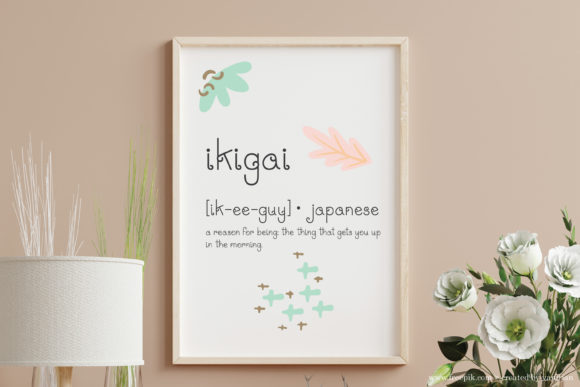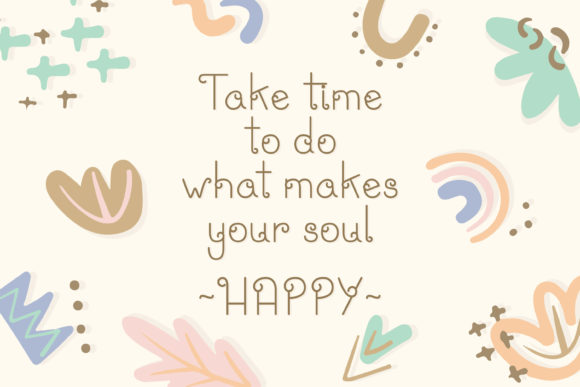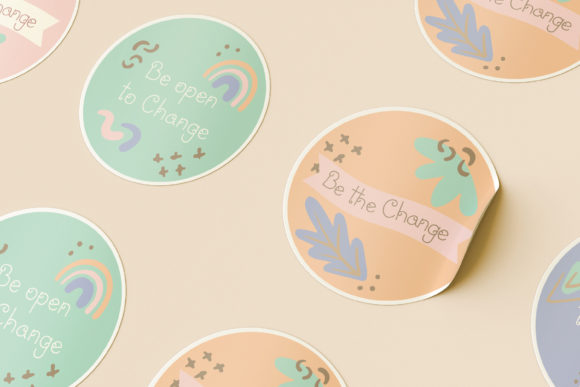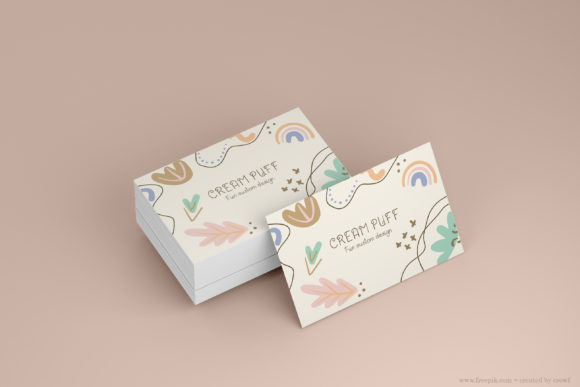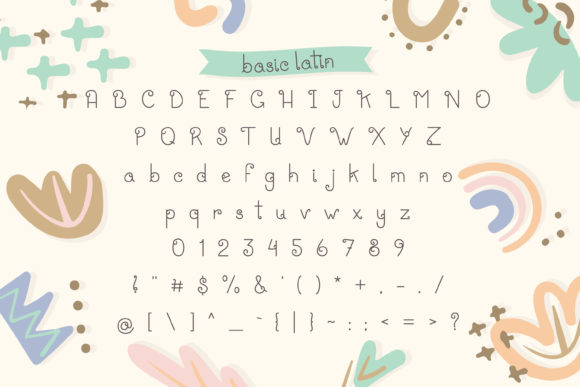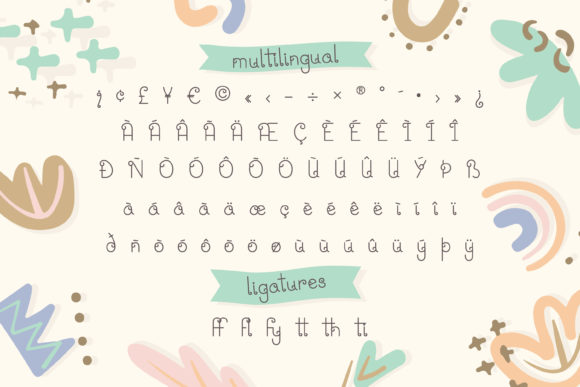
Introduction to Cream Puff Font
Cream Puff is a cute, chic and thin lettered handwritten font.
Dainty and joyful, this font will be ideal for writing wedding invitations, cards or any other design that may need a romantic, personalized touch .
Cream Puff Font offers exceptional quality and versatility, making it a valuable addition to your design toolkit. Whether you’re creating for personal projects or commercial use, Cream Puff Font delivers professional results.